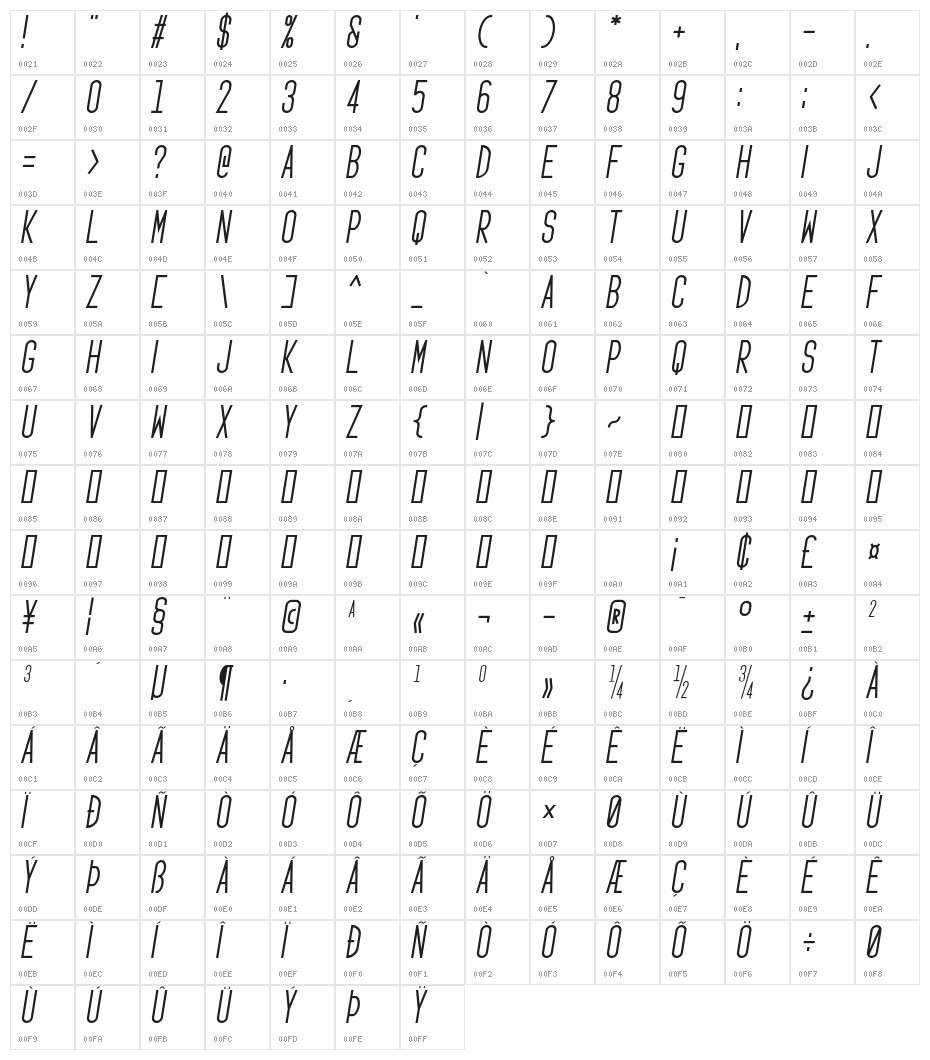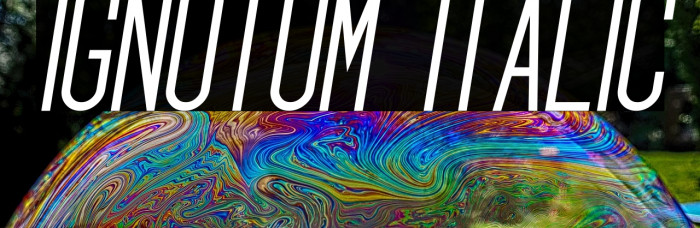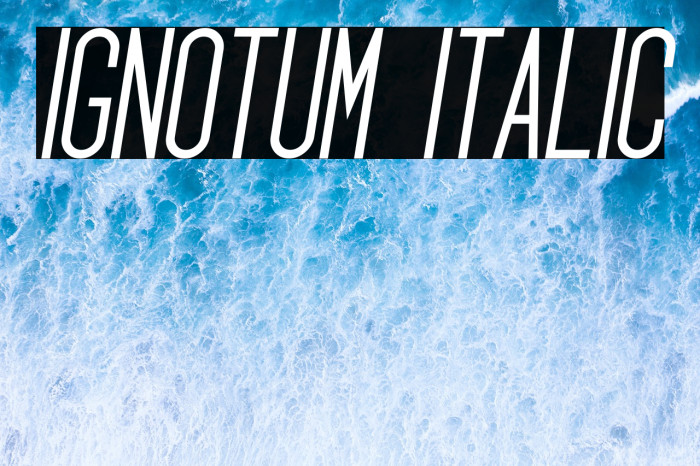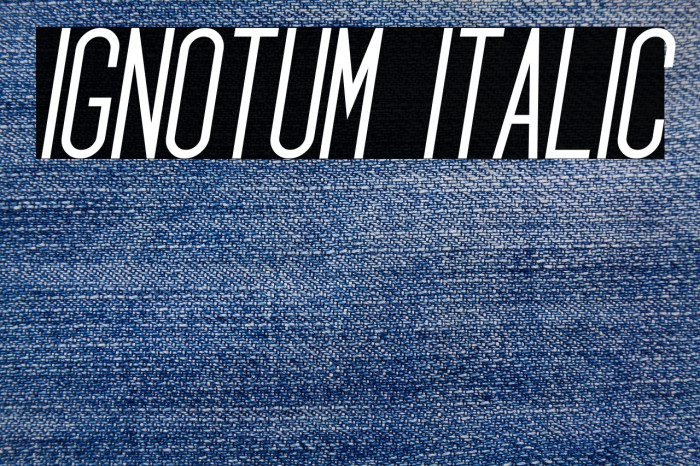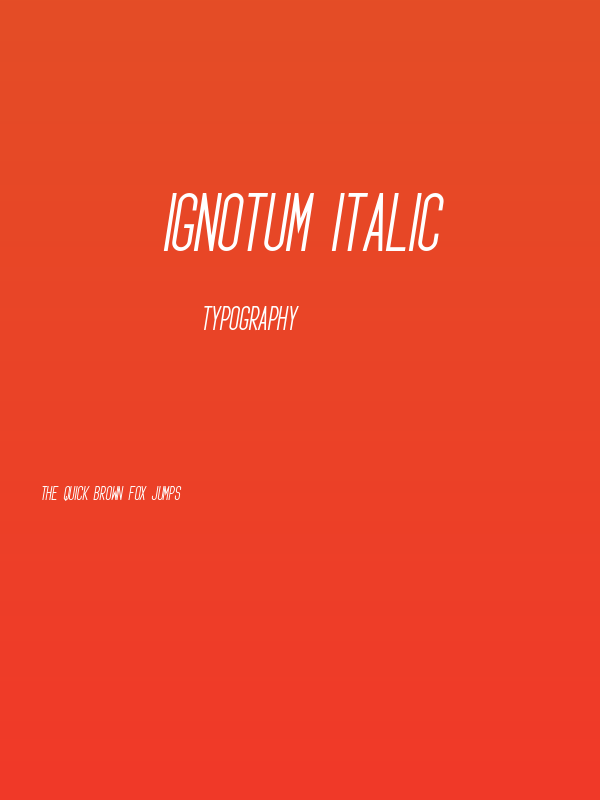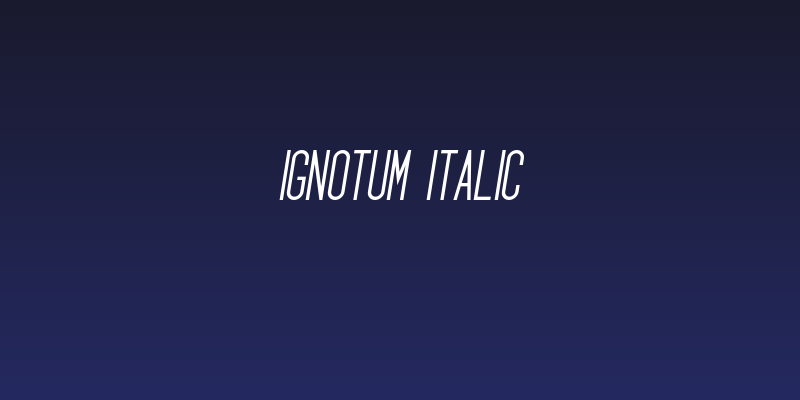
Ignotum Italic Font
Ignotum Italic Description
This font features a modern and sleek design with a distinct italic slant, giving it a dynamic and forward-leaning appearance. The characters are tall and narrow, contributing to a condensed width that maximizes space efficiency. The strokes are consistent in thickness, providing a medium contrast that balances readability with style. The uppercase and lowercase letters maintain a uniform height, enhancing the font's streamlined look. The numerals and special characters are designed to match the overall aesthetic, ensuring a cohesive appearance across all text elements.
| Proposed Projects | Ideal for use in fashion magazines, modern branding, and dynamic advertising campaigns. |